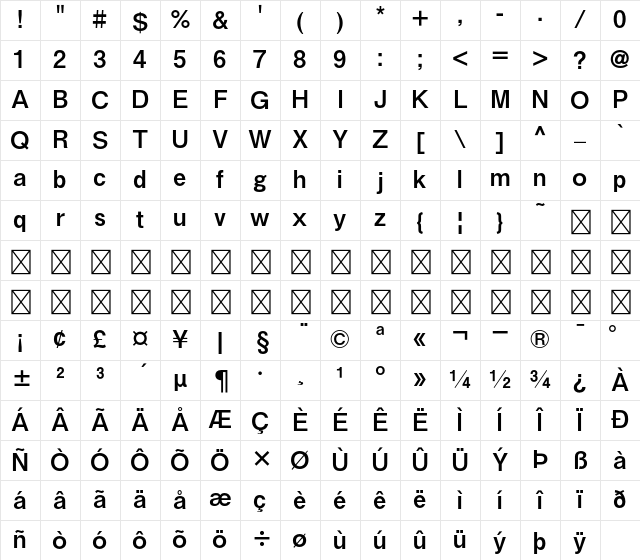
A-OTF Midashi Go MB1 Std DeBold
Style: DeBold
Design Context for A-OTF Midashi Go MB1 Std
A-OTF Midashi Go MB1 Std is a composed and adaptable typeface that performs quietly and consistently across a wide range of design contexts. Its bold stroke weight gives it real presence on the page.